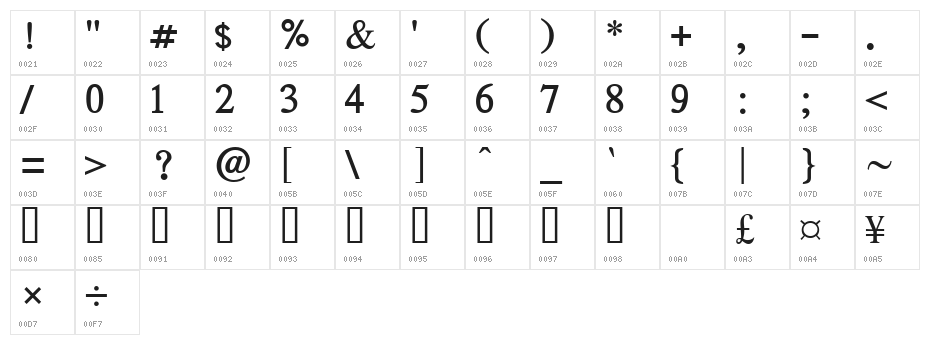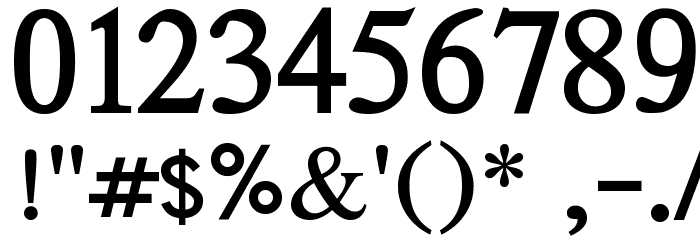
AnmolUniBaniHeavy Regular Font
AnmolUniBaniHeavy Regular Description
This font features a robust and heavy appearance, characterized by thick strokes and a strong presence. The numerals are bold and slightly condensed, providing a sense of stability and impact. The special characters are designed with a similar weight, ensuring consistency across all glyphs. The overall design is modern yet retains a classic serif influence, making it versatile for various applications. The font's heavy weight makes it particularly suitable for headlines and titles, where a commanding and authoritative look is desired.